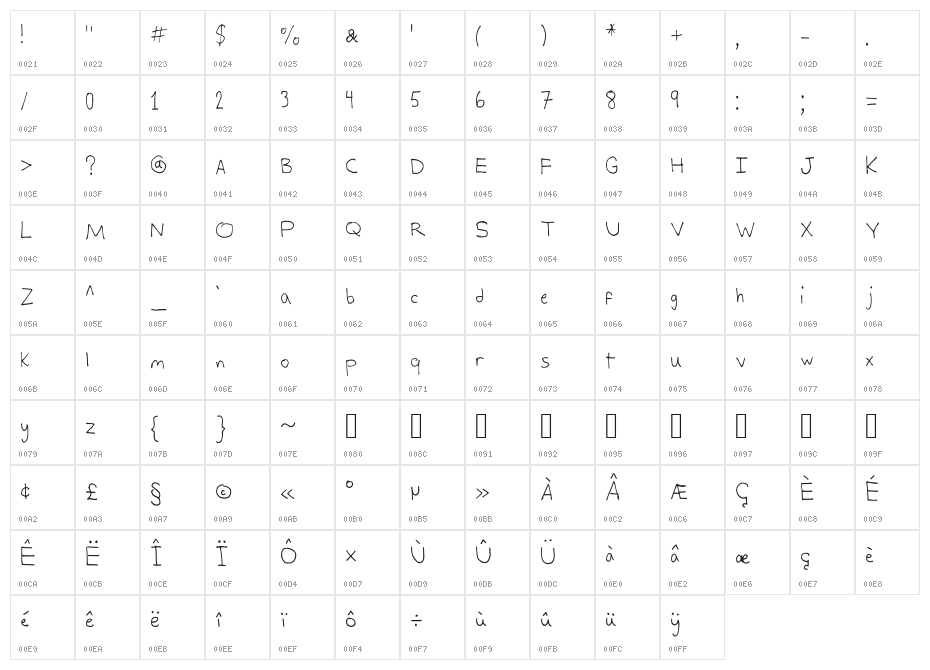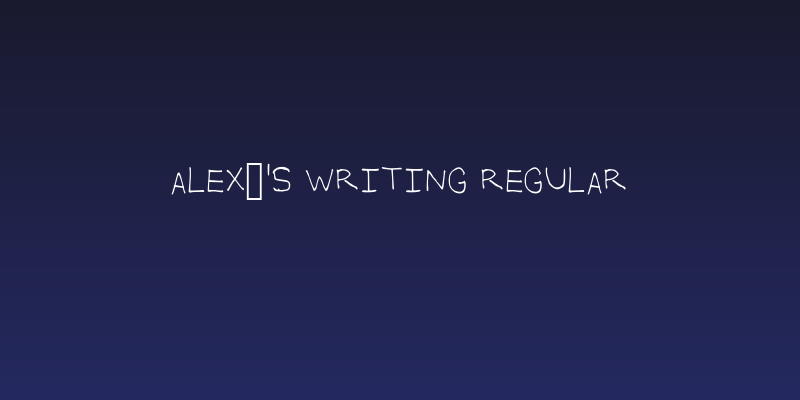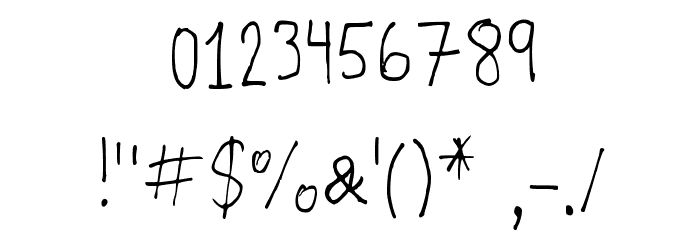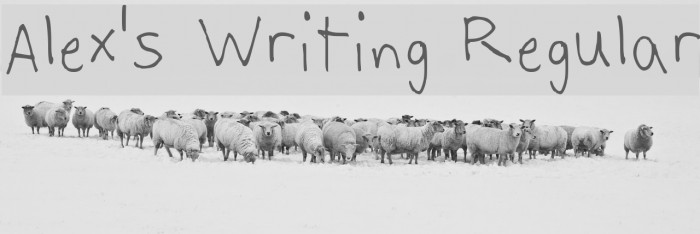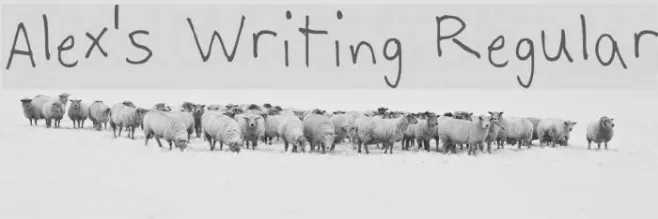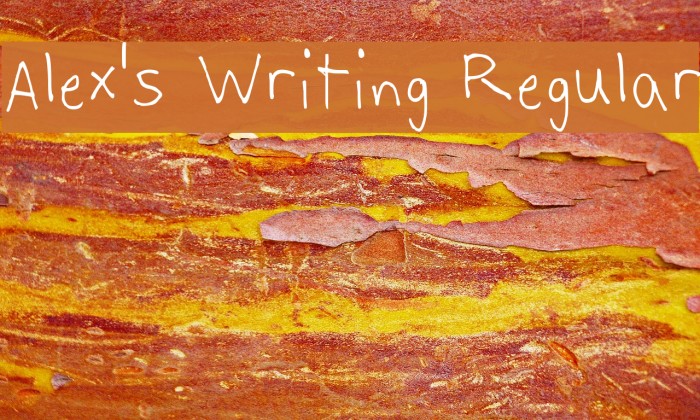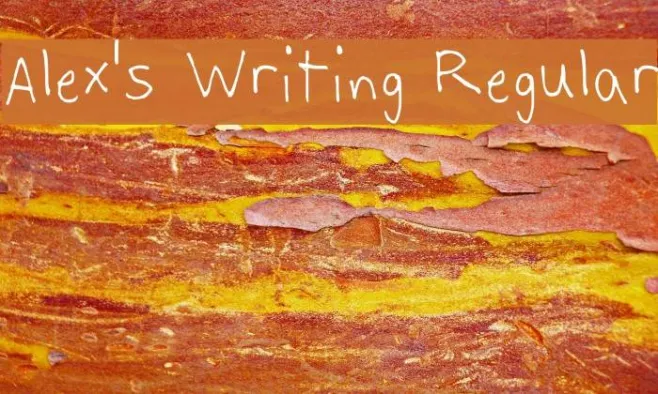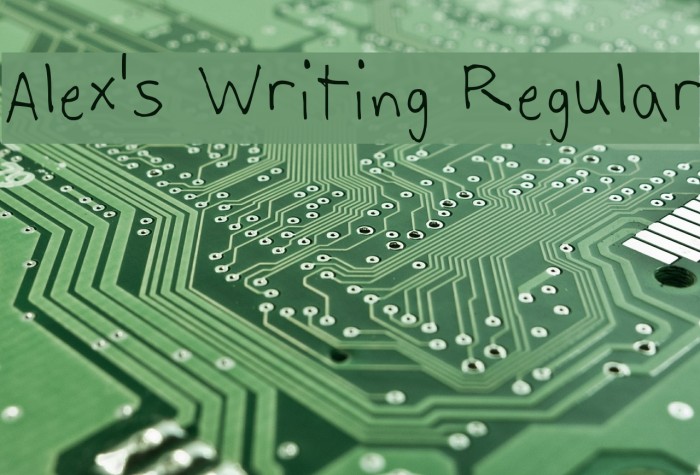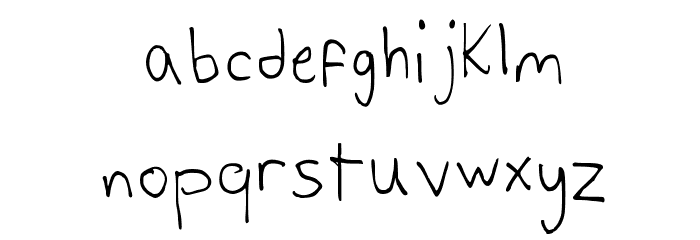
Alex's Writing Regular Font
Alex's Writing Regular Description
This font exudes a casual, handwritten style, reminiscent of personal notes or informal letters. The characters are slightly irregular, adding a touch of authenticity and warmth. The strokes are smooth and flowing, with a playful and approachable feel. The uppercase letters maintain a consistent height, while the lowercase letters exhibit slight variations, enhancing the handwritten effect. Numbers and special characters are crafted with the same informal charm, making the font versatile for various creative projects.
| Proposed Projects | Ideal for personal notes, greeting cards, children's books, and informal branding. |